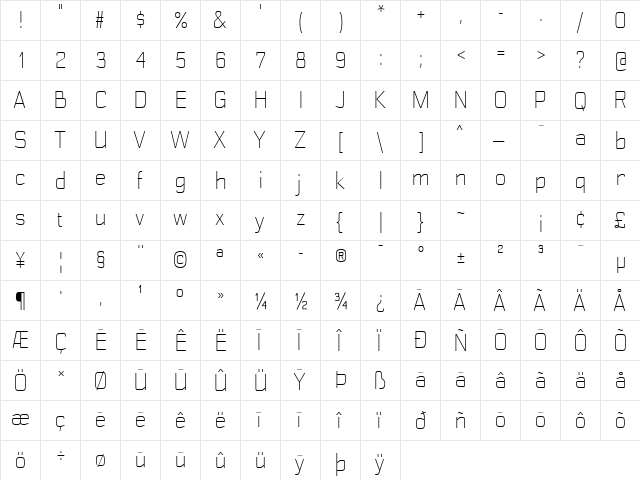
Polyflec Light Font Preview
Polyflec Light
Polyflec Light Font Details
Design Context for Polyflec Typeface
Polyflec takes a measured approach to typography — its balanced proportions and neutral character make it a reliable workhorse for both digital and print work. Its slender proportions lend an understated elegance to any composition.
Pro Tip: Use Polyflec in both headline and body roles to test its range before committing to a single application.